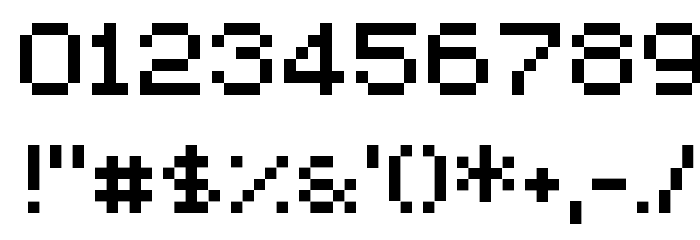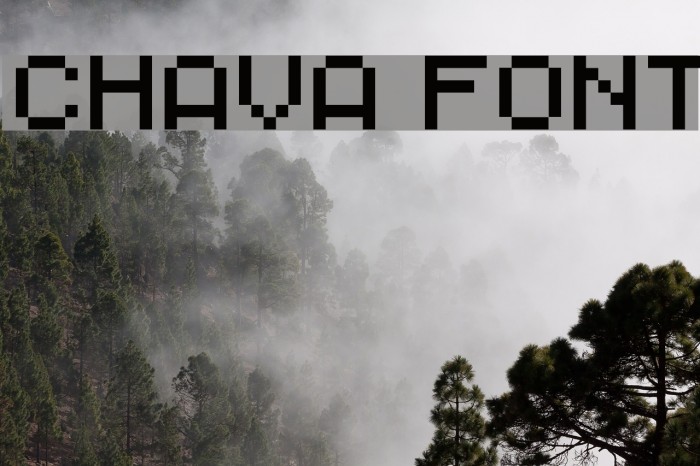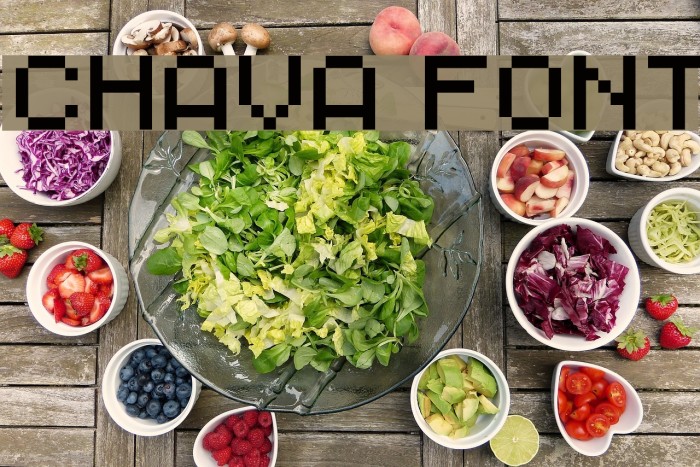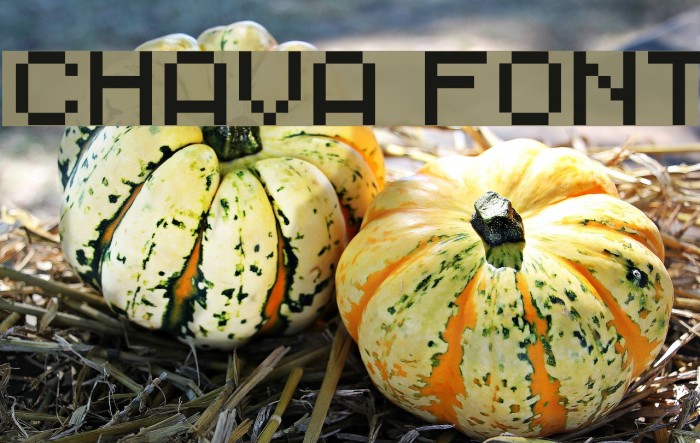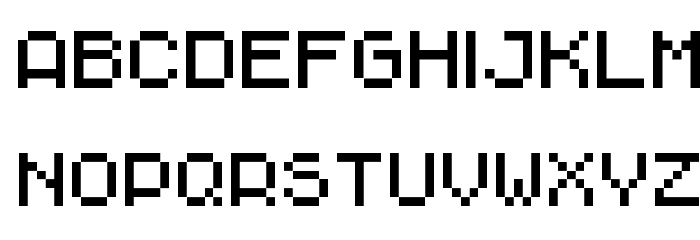
Chava Font
Chava Description
This font features a pixelated, blocky design reminiscent of early digital displays and video games. Each character is constructed with a grid-like precision, giving it a distinctly retro and technological feel. The uppercase and lowercase letters maintain a uniform height, contributing to a monospaced appearance. The numbers and special characters follow the same pixelated style, ensuring consistency across all glyphs. This font's geometric simplicity and nostalgic aesthetic make it ideal for projects that aim to evoke a sense of vintage digital technology or retro gaming culture.
A pixelated, blocky font with a retro digital aesthetic from Uncategorized fonts.
- Proposed Projects: Ideal for retro video game designs, digital art projects, tech-themed posters, and nostalgic branding.
- Overall Style: Retro, Digital
- Use Case: Logos, Headlines, Digital displays